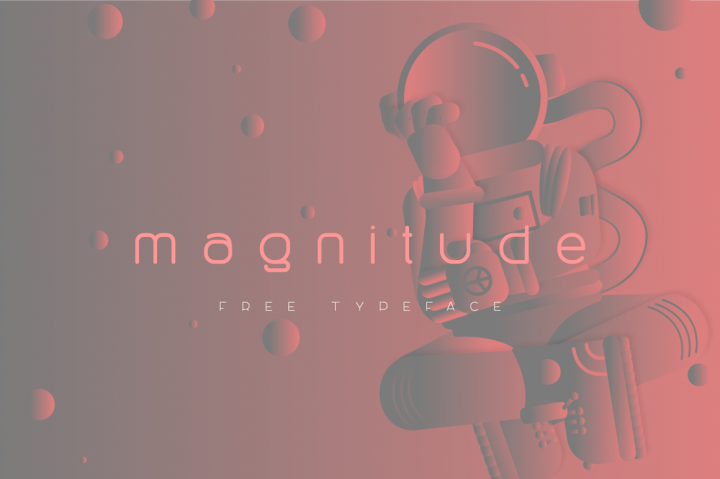
Free Magnitude Font
Introducing you to the absolutely beautiful free magnitude font. Go give some love to The Hungry JPEG for creating this top-notch free font. This is absolutely fancy font so you can easily make world-class designs.